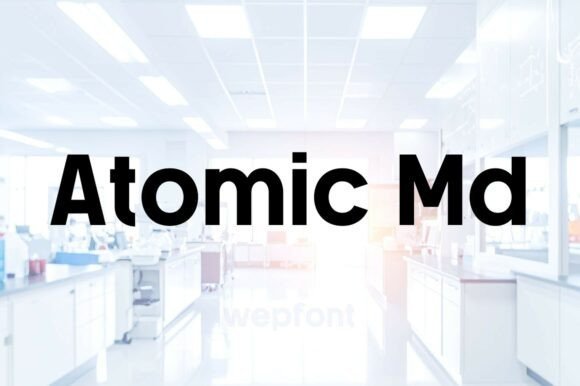
The Perfect Blend of Style and Substance: Introducing Atomic Md Font
Remember the moment when a great font choice completely elevates your design project? For designers, it’s that ‘aha’ moment when everything falls into place. And that’s exactly what the Atomic Md Font is designed to deliver – a clean, modern, and highly legible sans-serif font that projects precision, technology, and innovation.
With its balanced letterforms, perfectly rounded curves, and crisp straight lines, the Atomic Md Font exudes a friendly yet authoritative presence. This versatile font is perfect for designers looking for a dependable and modern look that adapts seamlessly to various applications. From logos to interfaces, and from digital to print materials, the Atomic Md Font is the perfect choice for designers seeking a professional aesthetic that never compromises on readability.
Key Features of Atomic Md Font
- Unique Characteristics: The Atomic Md Font features a unique blend of modern and vintage elements, with clean lines, geometric shapes, and a subtle texture that gives it a distinctive look and feel.
- Weight and Style: The font is available in several weights, including Light, Regular, Medium, and Bold, as well as various styles, such as Italic and Oblique, allowing for a range of design possibilities.
- Language Support: The font supports a wide range of languages, including Latin, Cyrillic, Greek, and many others, making it a versatile choice for global design projects.
Review of Atomic Md Font
I recently had the chance to work with the Atomic Md font, and I’m excited to share my thoughts with you.
The font’s modern design is sleek and sophisticated, making it perfect for digital products and tech-related projects.
Atomic Md is highly legible, even at small font sizes, which is essential for applications where readability is crucial.
The font’s weight and contrast are well-balanced, making it easy on the eyes and comfortable to read.
The font may not be the best choice for projects that require a more traditional or classic look, as its modern design may not fit the aesthetic.
Some users may find the font’s width to be too condensed, which could affect readability in certain contexts.
Overall, I’m impressed with the Atomic Md font’s performance and would recommend it for projects that require a modern and sleek look. While it may have some limitations, its strengths outweigh its weaknesses, making it a great addition to any designer’s toolkit.
The Atomic Md font is a versatile and modern sans-serif font that works well for a variety of applications, including:
1. Headings and titles
2. Body text in digital products
3. Branding and marketing materials
4. Web design and development
Remember to pair the Atomic Md font with other fonts that complement its modern and clean aesthetic.
Alternatives to Atomic Md Font
Inter is a sans-serif font designed by Rasmus Andersson. It is known for its high x-height and geometric shapes, making it suitable for digital products, apps, and websites. Inter is a great alternative to Atomic Md Font for designers who want a clean and modern look.
Comparison: Inter has a more geometric and minimalist look compared to Atomic Md Font, which has a more rounded and friendly feel. Inter is a great choice for designers who want a font that is highly legible and works well in digital interfaces.
Montserrat is a sans-serif font designed by Julieta Ulanovsky. It is inspired by the urban environment of Montserrat, a mountain range in Argentina. Montserrat is a great alternative to Atomic Md Font for designers who want a font with a strong, urban feel.
What are the technical specifications of Atomic Md Font?
Atomic Md Font is a variable font with a range of styles and weights, including light, regular, medium, bold, and black. It supports Unicode characters and is optimized for use at various font sizes and resolutions. The font also includes advanced features such as OpenType ligatures and stylistic sets.